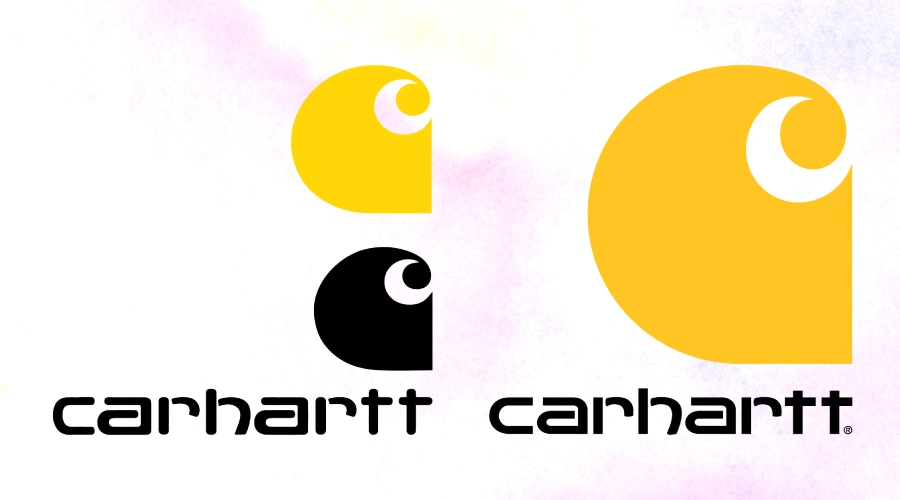
The Carhartt font is a custom font used in the Carhartt logo. The logo has evolved over time, but the current version features a lowercase wordmark in a modern, geometric font that is unique to the brand.
However, there are several fonts that are similar to the Carhartt font:
It is identified as the closest font to the Carhartt logo.
As per observation the Advertisers Gothic Light font have some similarities with the Carhartt font.
This font is designed by Studio Typo and is identified as a close match to the Carhartt font by Hyperpix.
This font is identified as the closest free font to the Carhartt logo font by Fonts Logo.
Overall, the Carhartt font is an important part of the brand’s visual identity, and it has been carefully designed to reflect the company’s values and history.